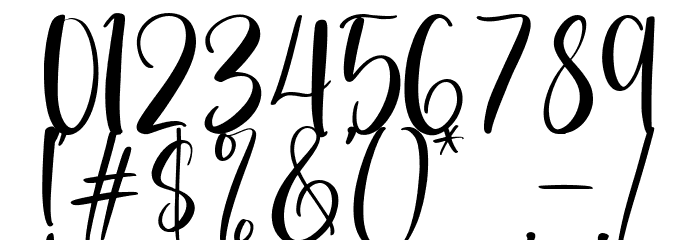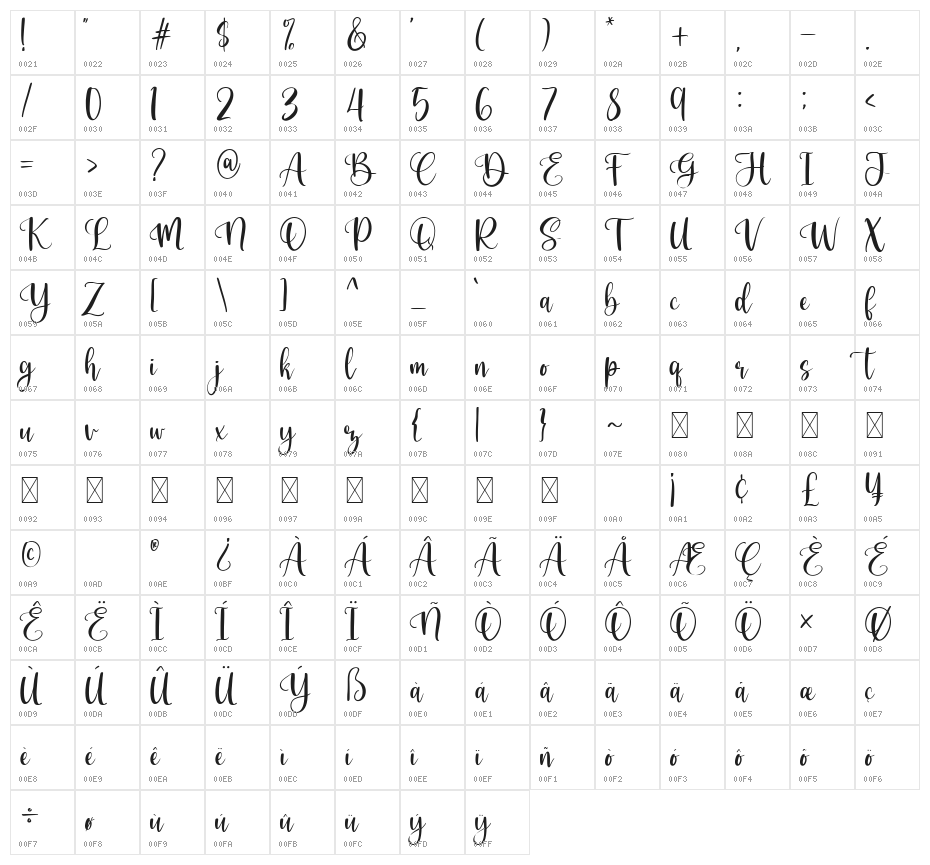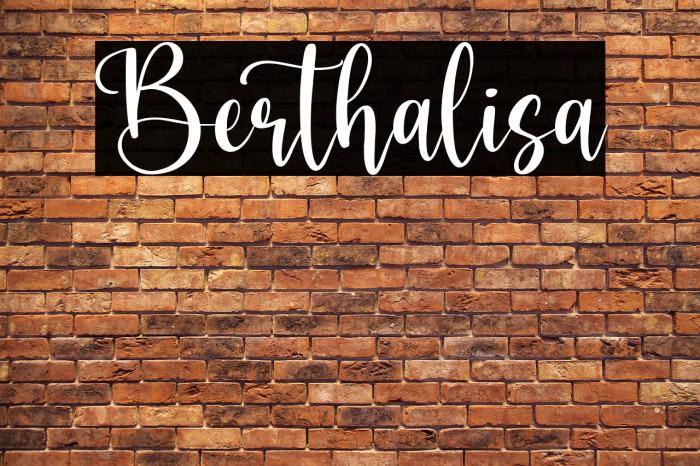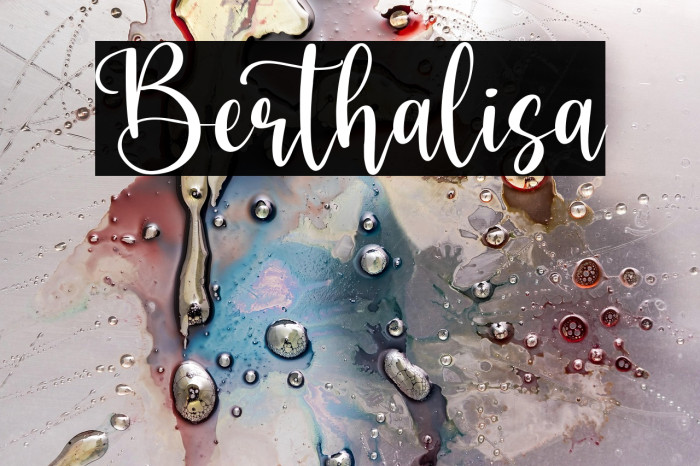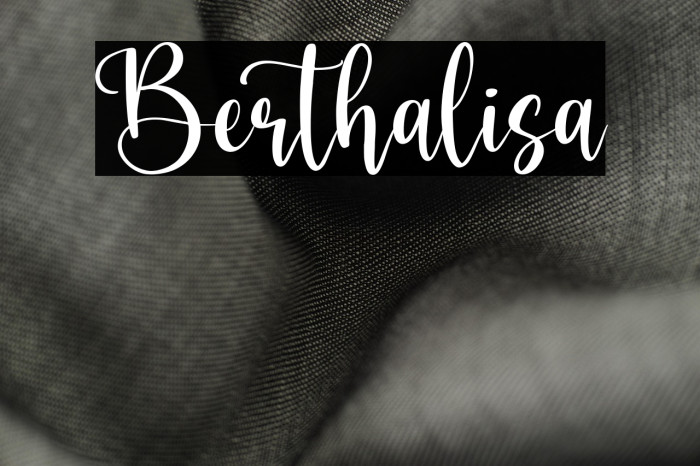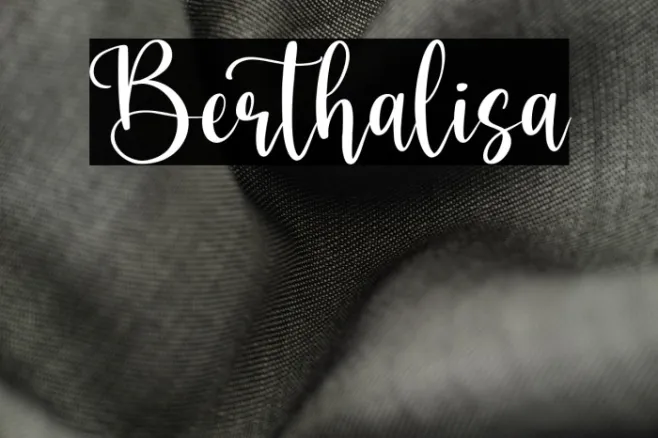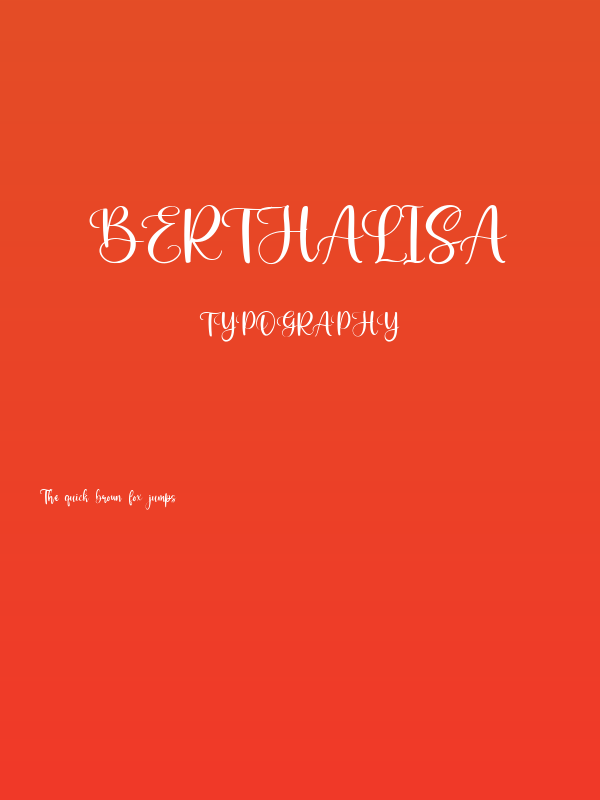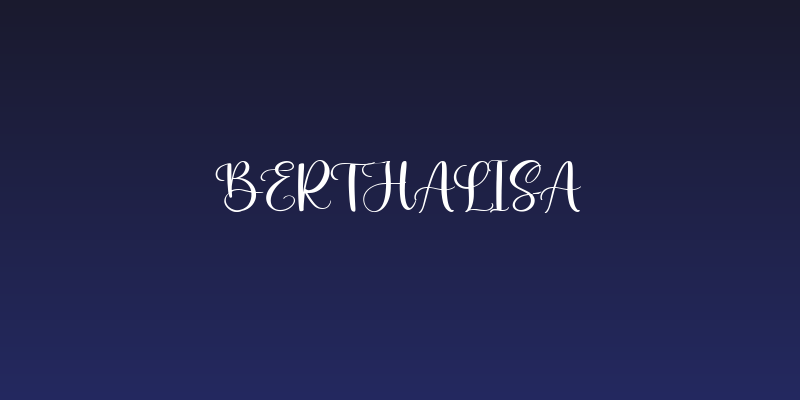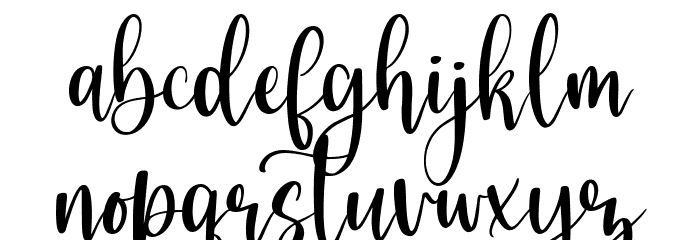
Berthalisa Font
Berthalisa Description
This font exudes a playful and elegant charm, characterized by its flowing script style. The uppercase letters are bold and sweeping, with intricate loops and flourishes that add a touch of sophistication. The lowercase letters maintain a consistent flow, enhancing readability while retaining a whimsical flair. Numbers and special characters are crafted with the same attention to detail, ensuring a cohesive look across all elements. The overall design is both modern and timeless, making it versatile for various applications.
| Proposed Projects | Ideal for wedding invitations, greeting cards, branding projects, and elegant packaging designs. |